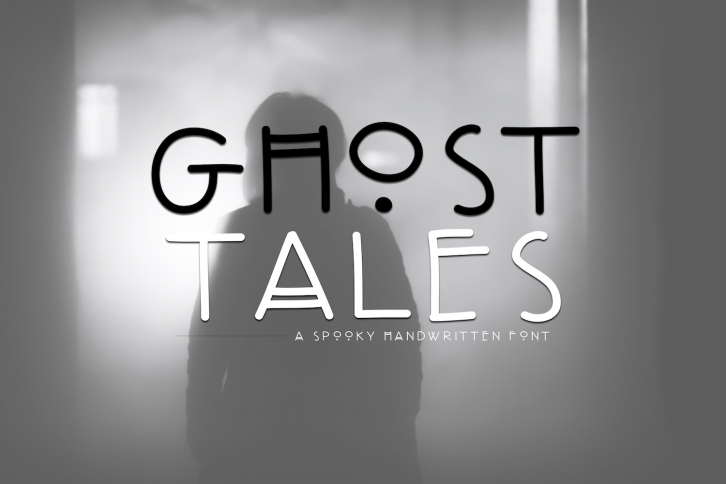
Ghost Tales - A Spooky Handwritten Font Download
Ghost Tales is a beautiful font that was designed by KA Designs. It's a great choice for designers and creatives who need such a font. It was released on June 25, 2018 and the file size is 14.80 MB. Ghost Tales may give a more youthful, expressive and casual look to your project. It is a very beautiful, refined, elegant, and high-quality font.